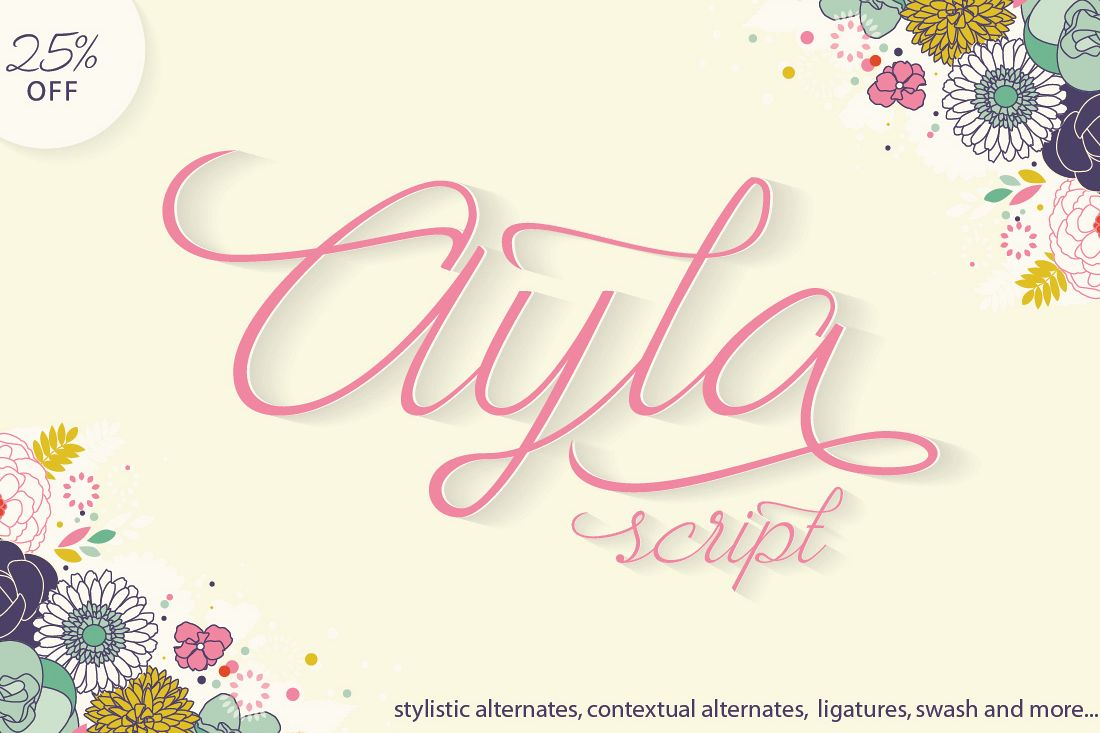
Ayla Script
AylaScript-Regular
Ayla Script is a cute script typeface. Ayla Script good for any project such as logo, wedding invitation, greeting card, poster, etc.307 glyphs and alternate character contain with opentype features. Stylistic alternates, Ornament, Swash and more.You can access all those alternate characters by using OpenType savvy programs such as Adobe Illustrator and Adobe InDesign.Files Included :